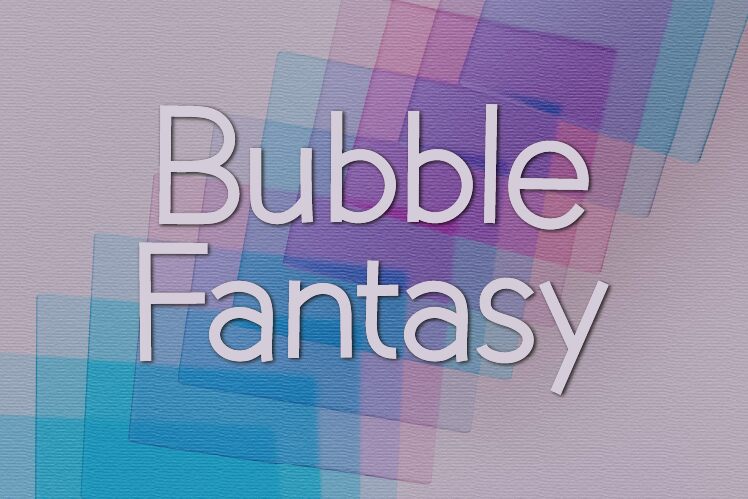
Bubble Fantasy font family by Hanna Bie is a free font made of round geometric shapes that create a simple and contemporary look. The sans serif has a fun and fancy feel to it that fits it into decorative designs targeted to both children and grownups. With a minimalistic approach, the font is elegant, professional, precise, and clean.
A font that is versatile in nature, Bubble Fantasy can be used for headings, subheadings, and content. Think of it in illustrations, animations, branding, packaging, game design, comics, and editorial works.
The sleek typeface is also perfect for writing titles, quotes, poster designs, advertising, and web content. The outlined license is ‘for personal use only’. For commercial use, you may consider a purchase, donation, or other methods of obtaining extended rights.